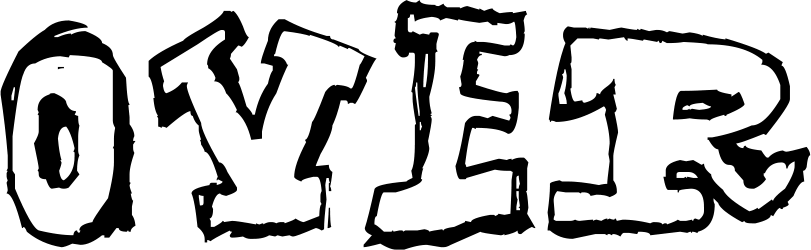
Over Font
Today’s graffiti font has a street design and gives off a youthful and punky vibe! Over has an outlined hallow character design that brings a handwritten illusion to your words. You can use it to write gaming titles, teenagery movie and book names, summer party flyers, product introductions, and graffitis.